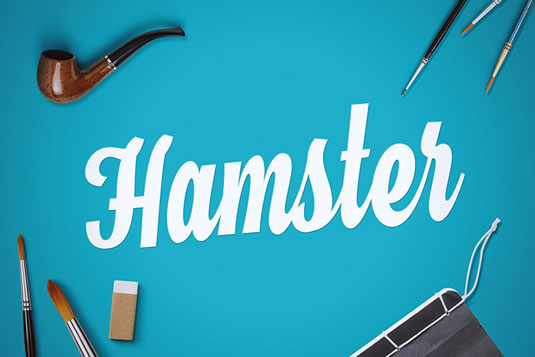
Font of the day: Hamster
Hamster from Artimasa
The team at Artimasa are no strangers to our font of the day posts. And today, they're back with free typeface Hamster, a cursive typeface inspired by brush lettering and traditional sign painting.